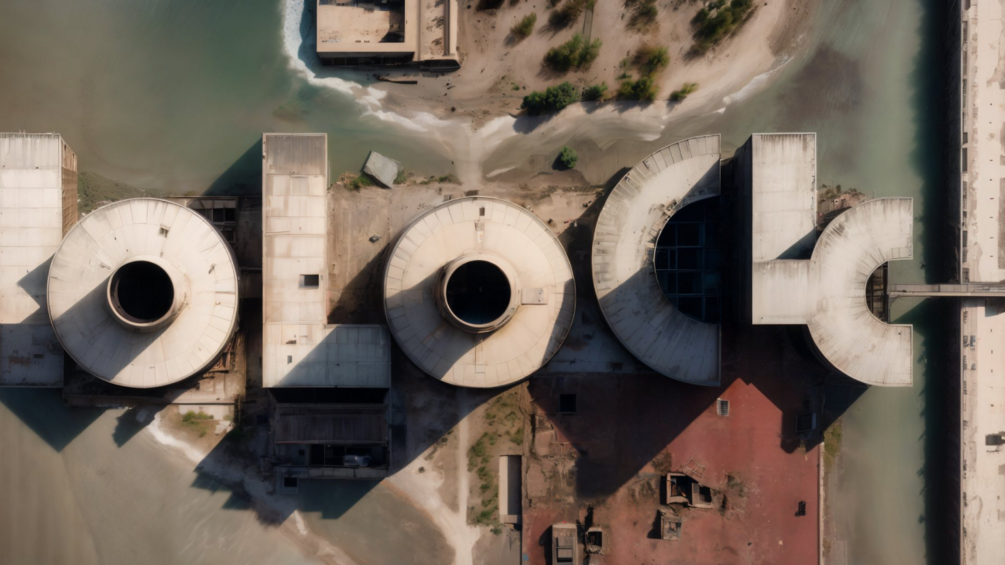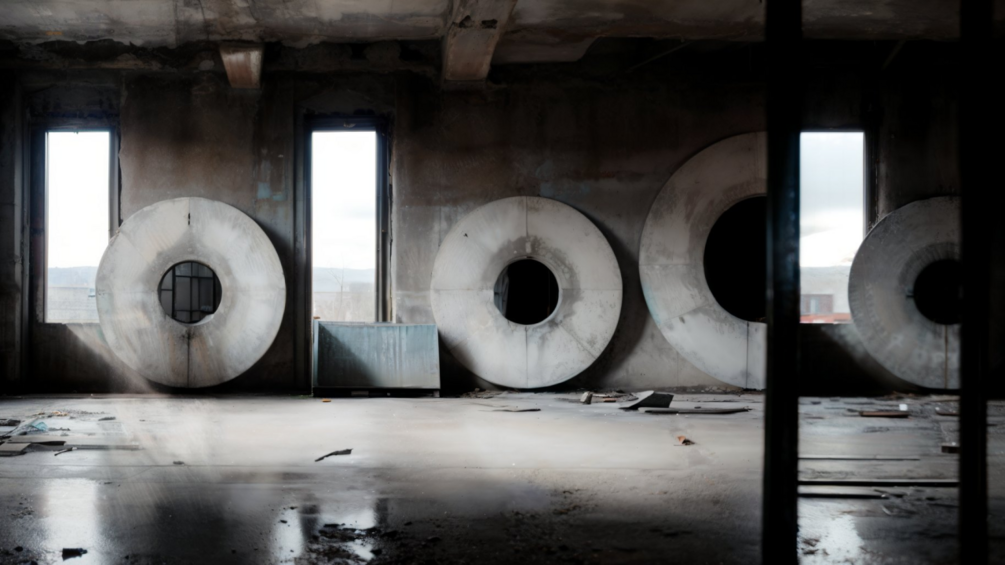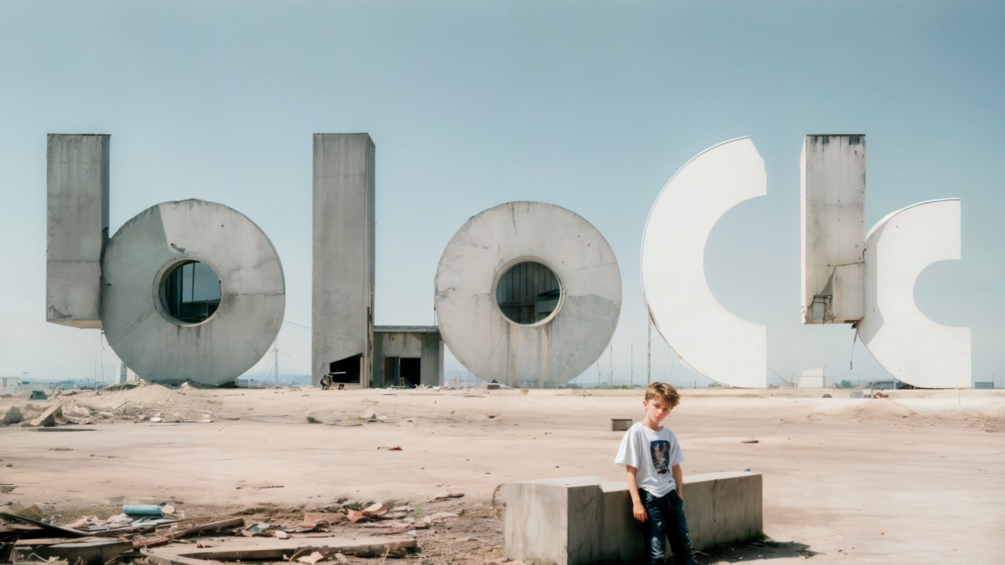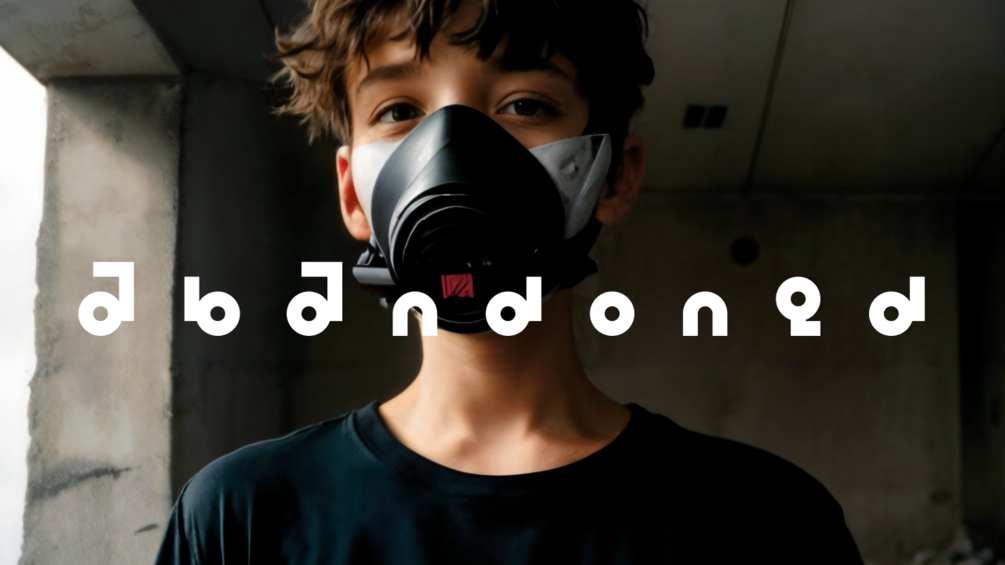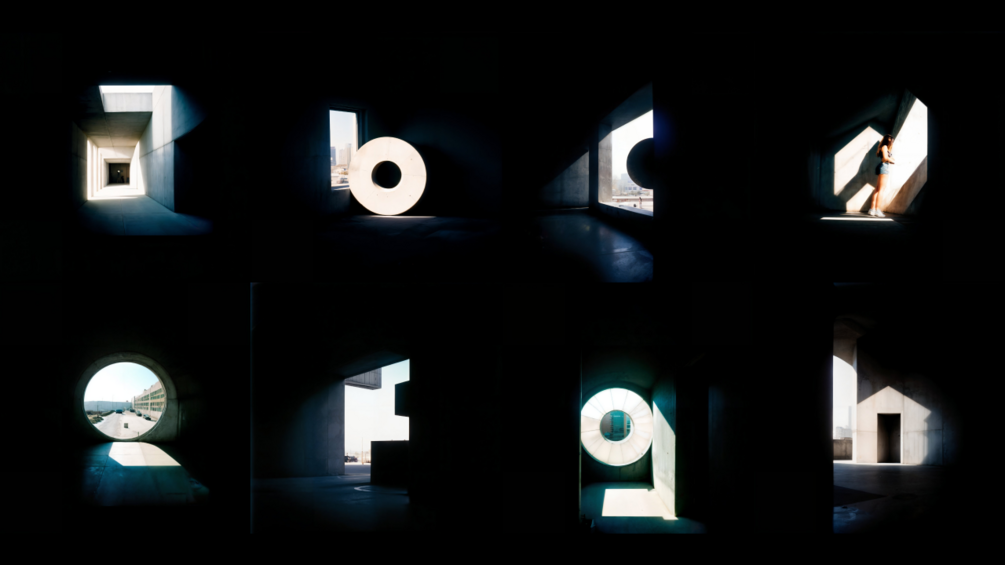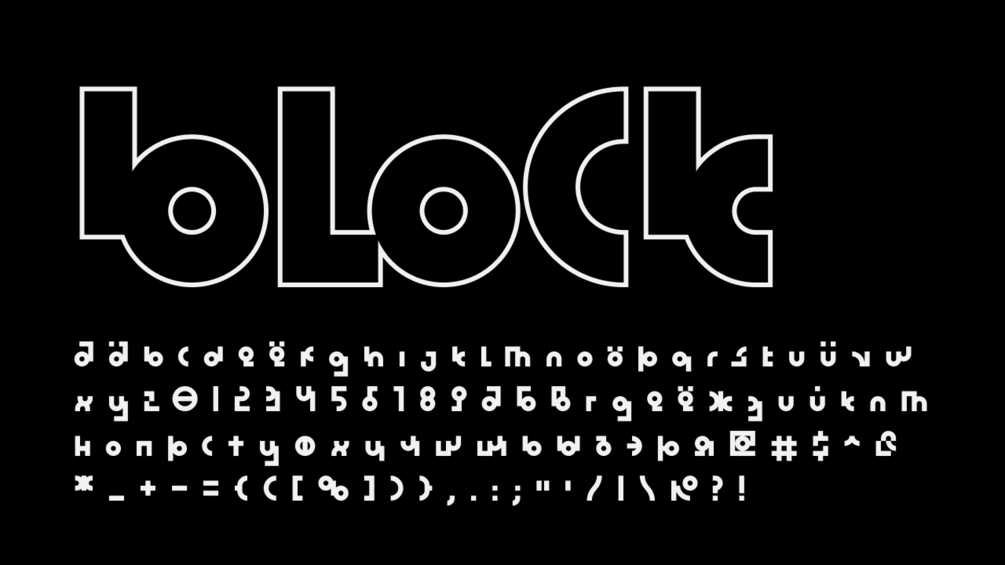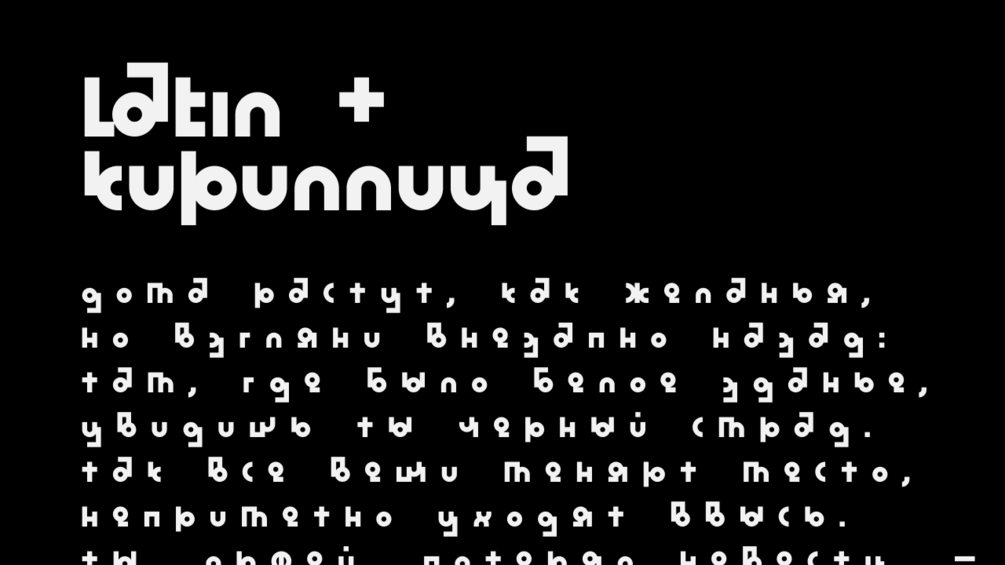
Block - free display font
An accidental display font inspired by metal-concrete shapes of abandoned buildings. Could be used for posters and logos creation.
Simple Latin and Cyrillic are included.